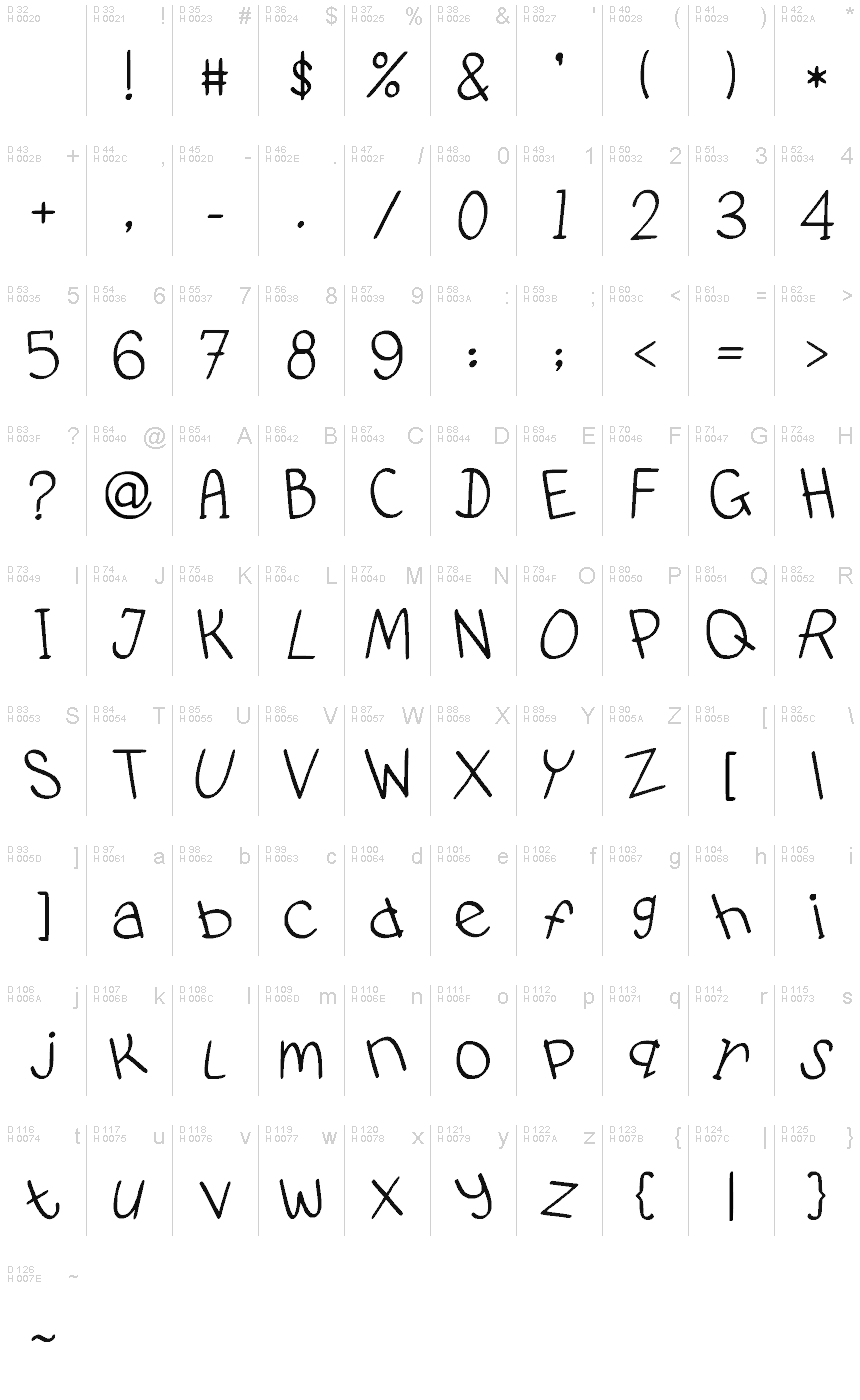
PidginDance
Pidgin Dance is a captivating display font that exudes a sense of energy and movement. Designed by Ohab Tbj, this unconventional typeface sports a distinctly distorted aesthetic, with each letter appearing to sway and twist as if engaged in a rhythmic dance. The irregular, asymmetrical forms lend the font a raw, organic quality, making it an intriguing choice for projects that demand a striking visual impact, such as event posters, album covers, or experimental branding.
Pidgin Dance's unique personality allows it to seamlessly transition between bold, edgy applications and more playful, whimsical designs, showcasing its versatility across a wide range of creative endeavors.